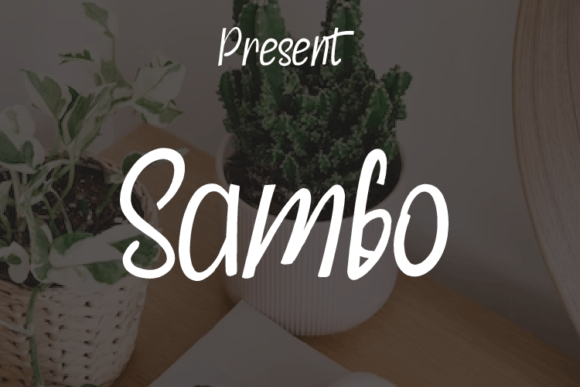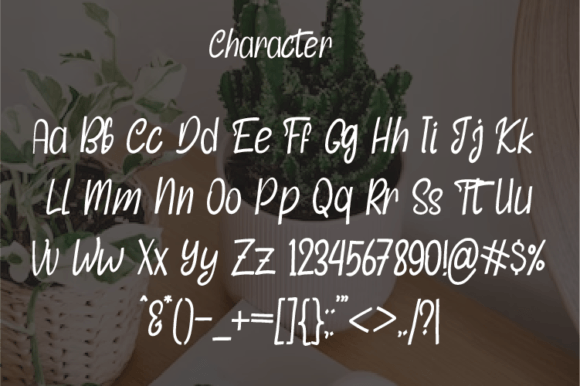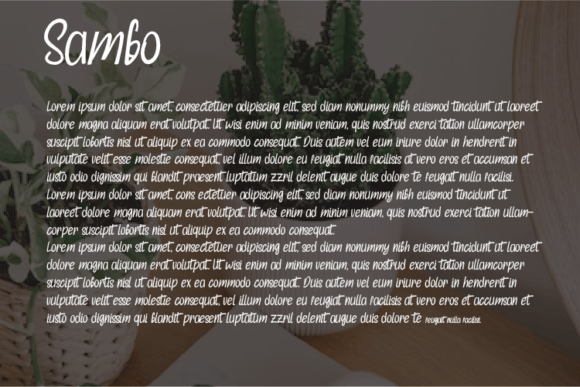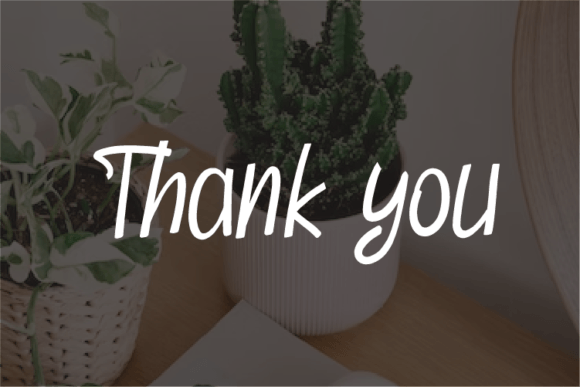
Sambo Font
About Sambo Font
“Sambo is a beautiful handwritten font that seamlessly marries simplicity with a modern aesthetic. With its clean style and contemporary look, Sambo emerges as an ideal choice for a variety of design applications. Whether it’s elegant and luxurious logos, book or movie title designs, fashion brands, magazines, clothing, fonts, quotes, or more, Sambo adds a touch of sophistication to your creative projects.
The allure of Sambo lies in its simplicity and modernity. The font’s clean lines and straightforward design contribute to a versatile and timeless appeal, making it well-suited for diverse design needs. Whether you’re crafting a logo, designing titles, or working on fashion branding, Sambo infuses an element of elegance into your creations.
Consider using Sambo to bring a modern and refined look to your logos or titles. Its versatility allows it to adapt seamlessly to different design requirements, providing a fresh and contemporary feel.
In summary, Sambo is not just a font; it’s a design asset that effortlessly blends simplicity and modernity. Whether applied to elegant logos, book titles, or fashion branding, Sambo brings a touch of sophistication to your designs. Explore its versatility and let Sambo enhance the visual appeal of your creative projects.”